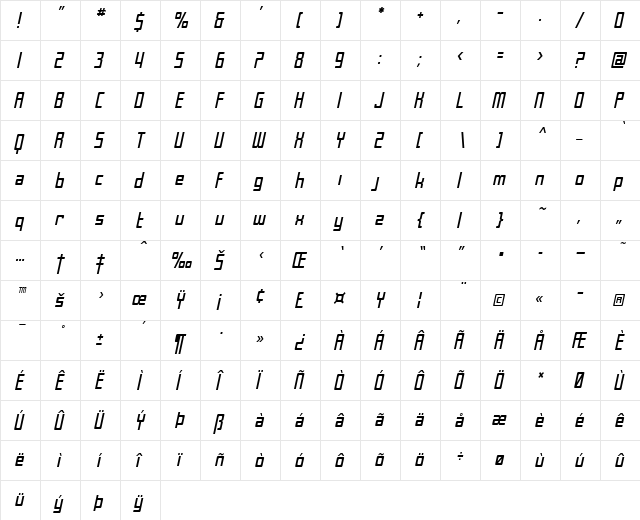
SF Laundromatic Condensed Oblique
Design Context for SF Laundromatic Condensed Typeface
SF Laundromatic Condensed is a composed and adaptable typeface that performs quietly and consistently across a wide range of design contexts. Its italic angle brings a sense of urgency and motion to the letterforms. Its narrow stance lets it pack a punch even in space-constrained designs.
Pro Tip: Try SF Laundromatic Condensed for annotation and caption copy alongside an upright companion — the contrast in angle creates a dynamic but ordered typographic system.